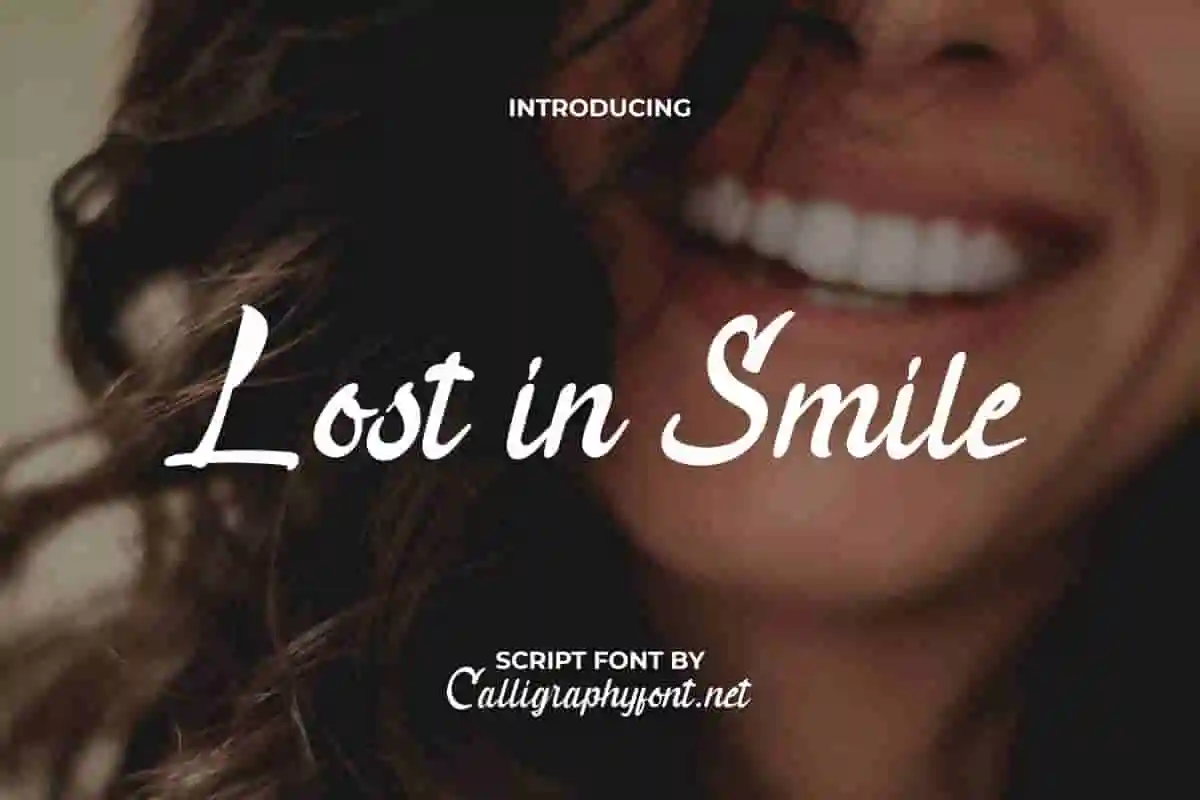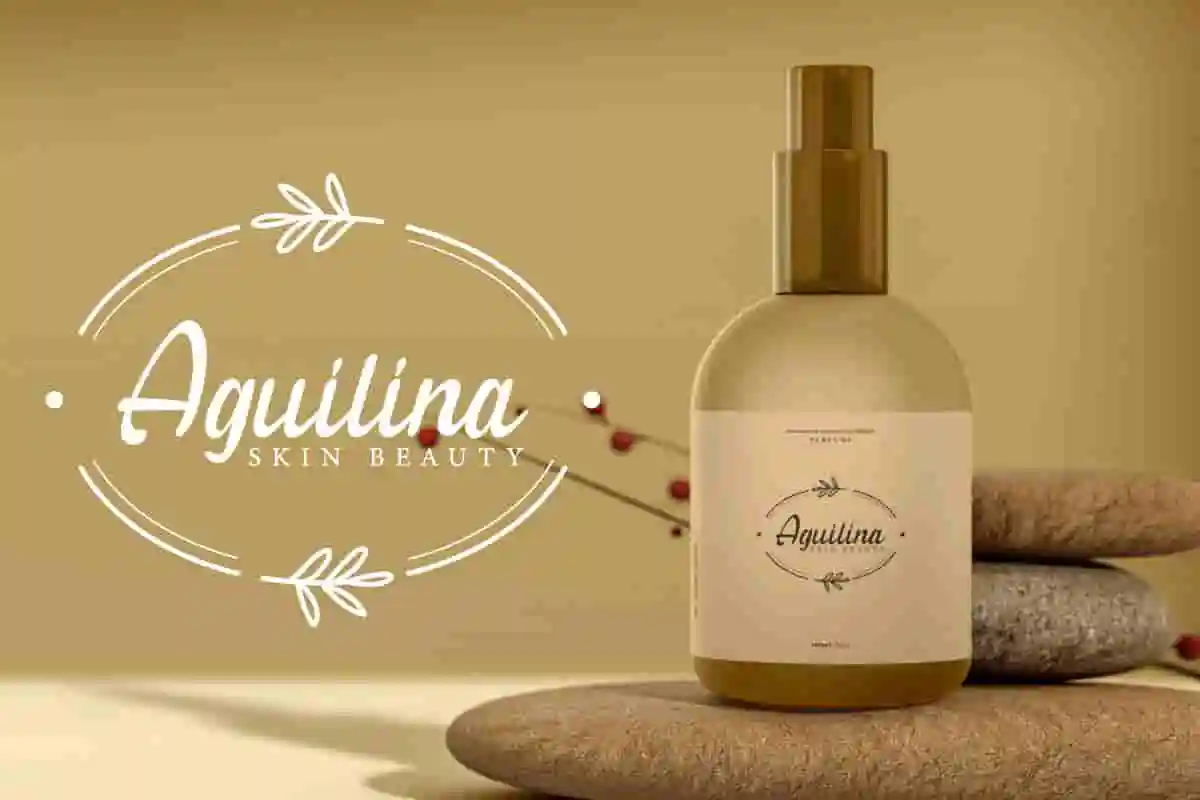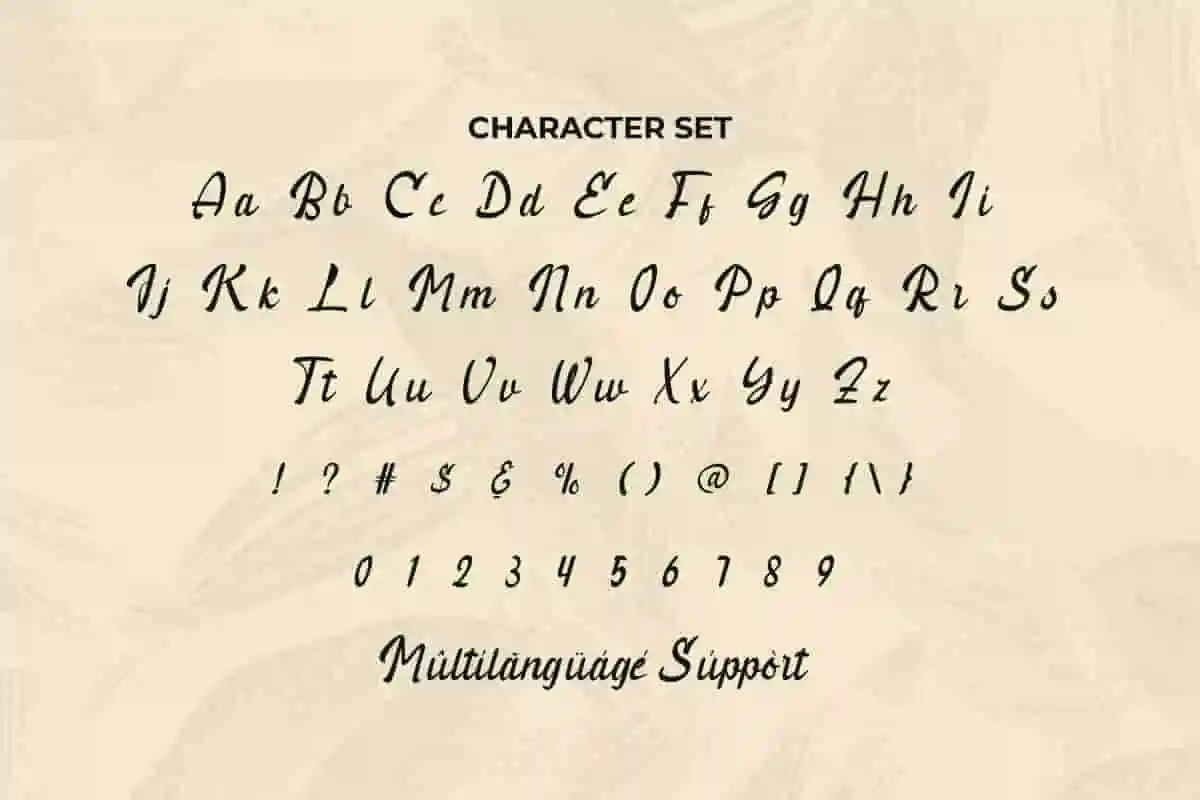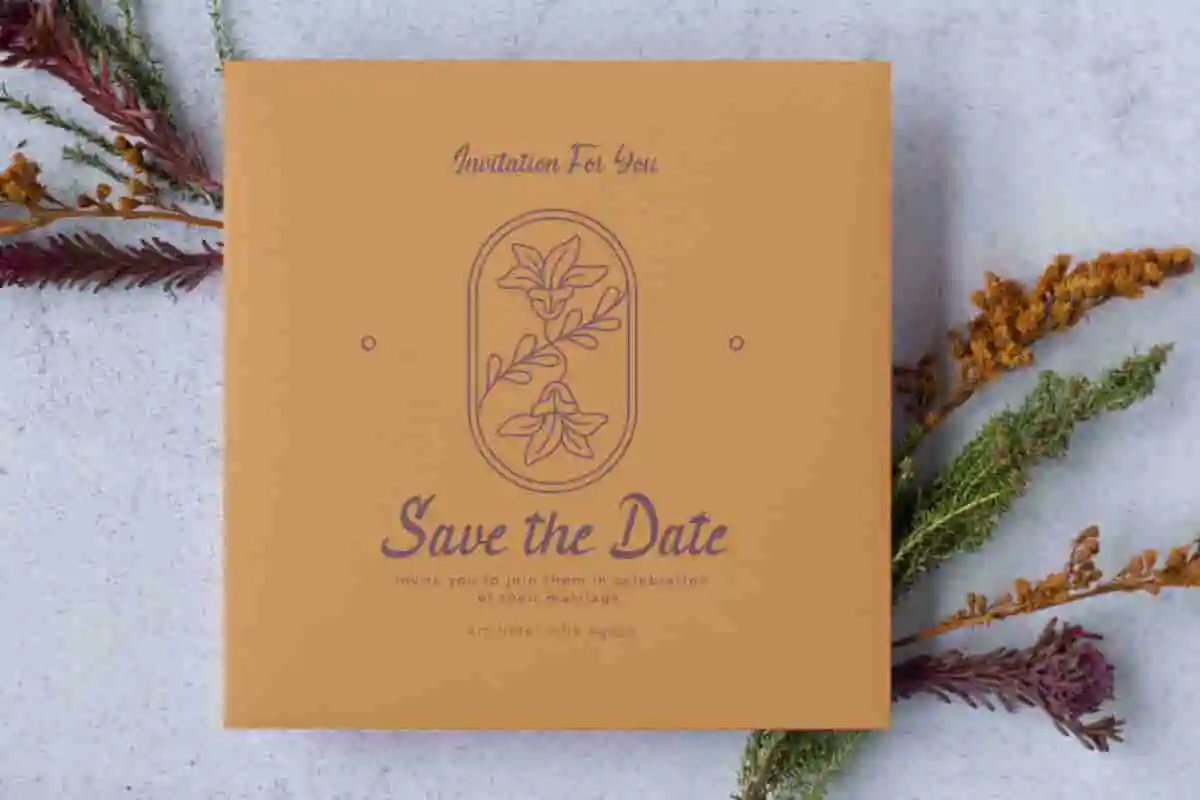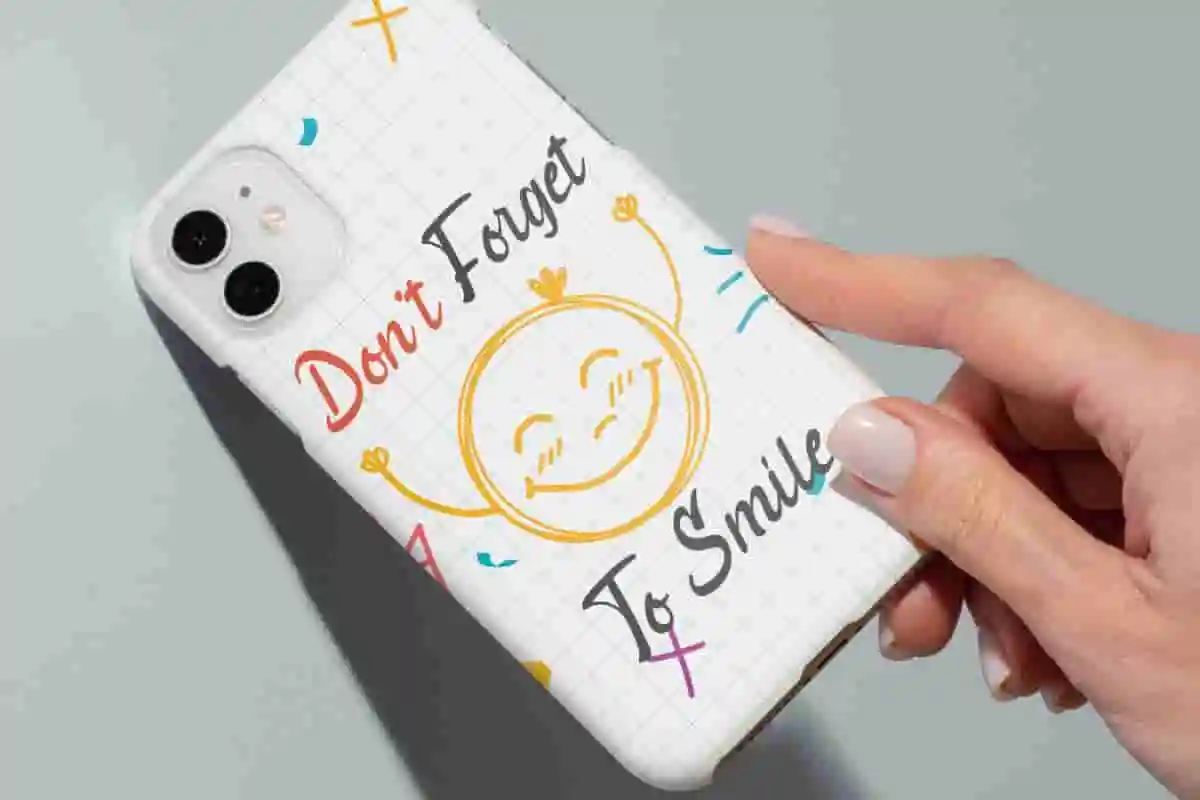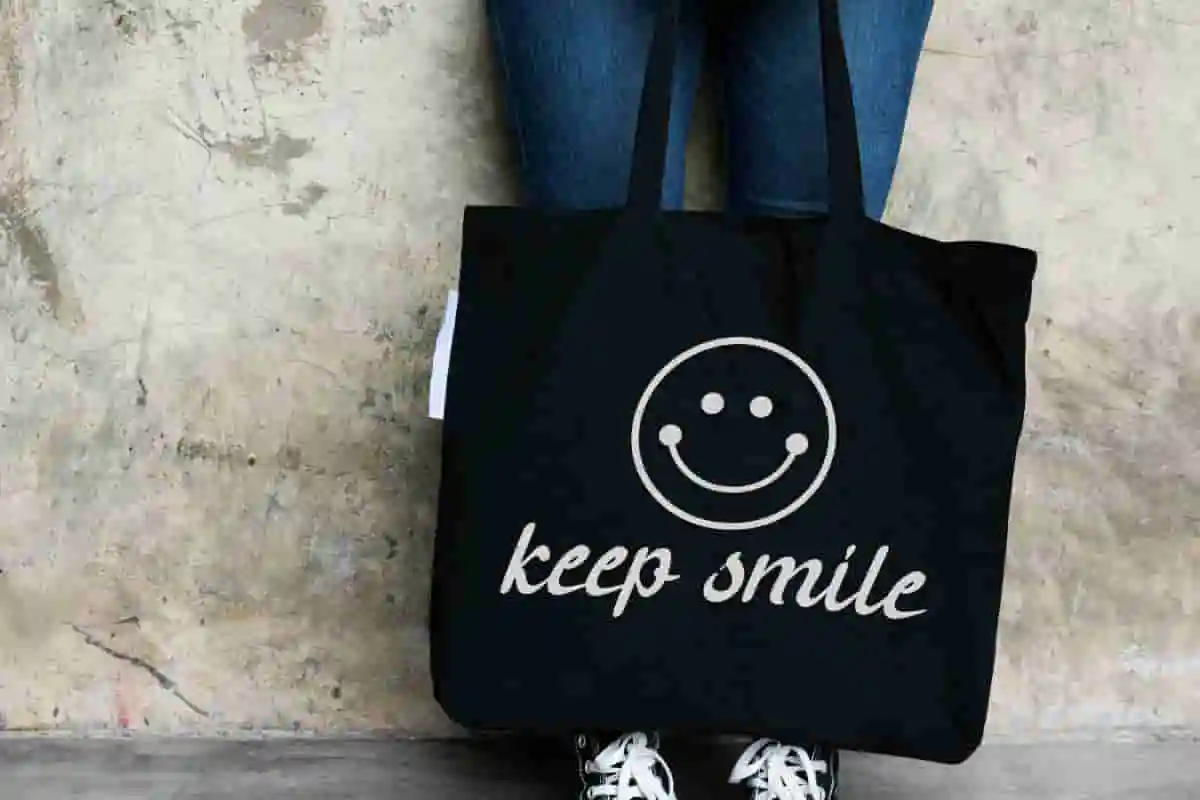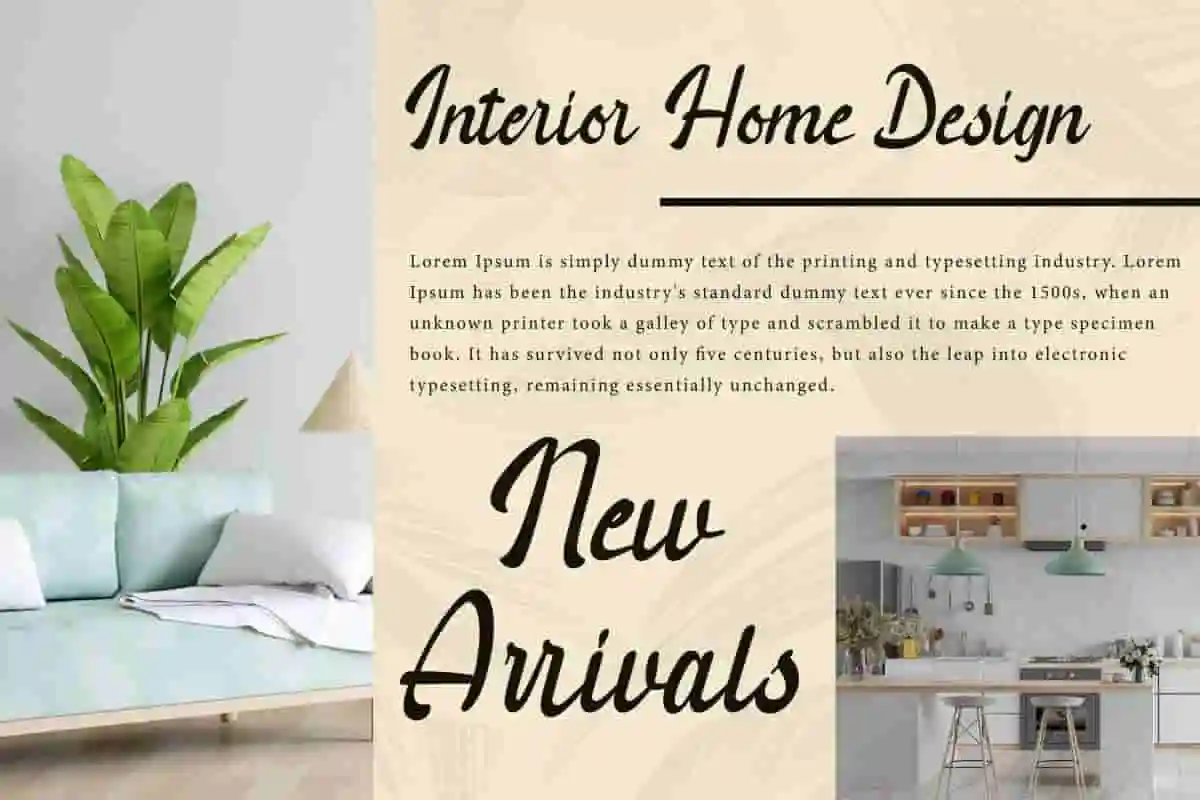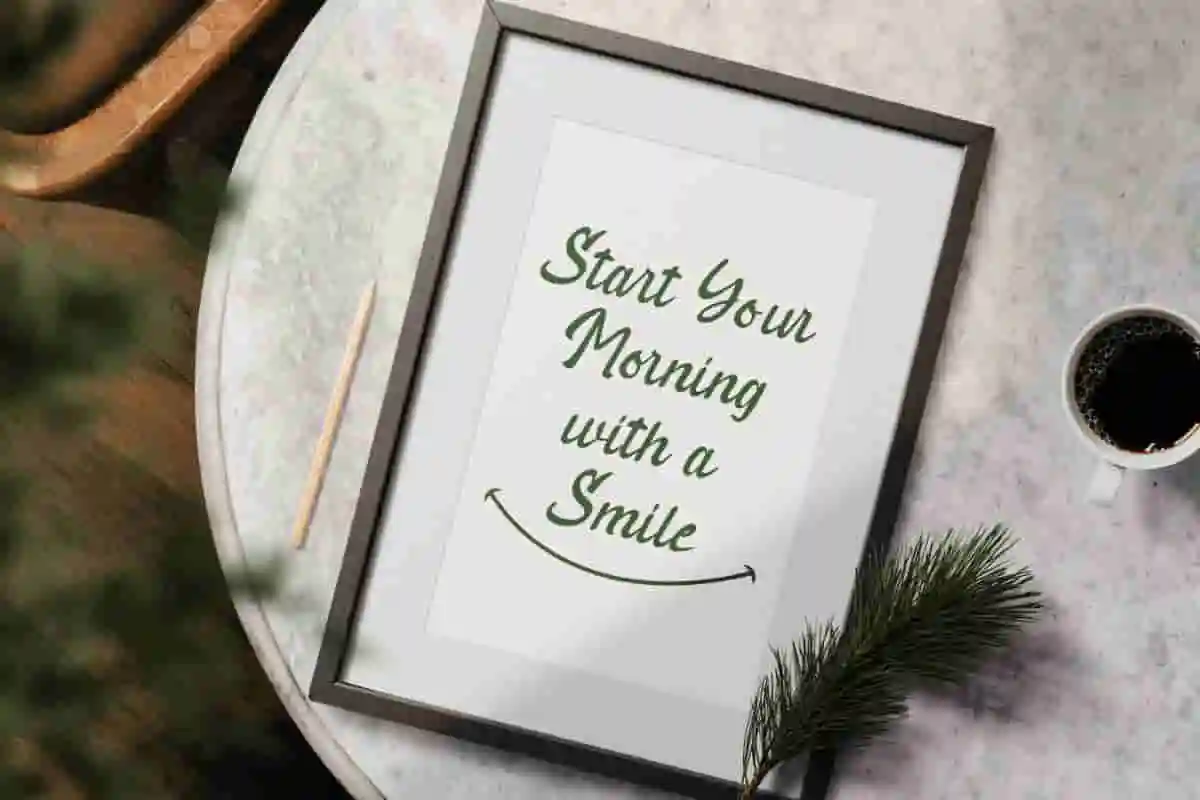
Lost in Smile Font
Lost in Smile Font is a gorgeous calligraphic script font with beautiful brush strokes forming curves in all sorts of stunning vibes. Great for many businesses : interior design, skincare brand, stationery, website, wedding and much more.
Lost in Smile Font is a gorgeous calligraphic script font with beautiful brush strokes forming curves in all sorts of stunning vibes. Typography with a modern look and feel that will bring joy to anyone with a special brush stroke to make things stand out. It is perfectly made to apply especially to any creative project, such as book, case design, invitation, label, logo, packaging, quote, screen print, website or any type of advertising purpose.
Every design tells a story, and sometimes all it needs is the perfect typeface to bring that story to life. Introducing Lost in Smile Brush Font, a delightful and playful handwritten typeface designed to spread positivity and creativity in every project. Whether you’re working on personal crafts, branding, or digital designs, this font is made to spark happiness and connection.
Lost in Smile Brush Font captures the warmth of natural handwriting with smooth curves and lively strokes, giving your designs a unique personality. It is perfect for greeting cards, social media posts, children’s books, packaging, posters, invitations, and logos. With its charming and approachable style, this font instantly adds a touch of friendliness and joy, making your message stand out.
Crafted with versatility in mind, Lost in Smile Brush Font is easy to read while still maintaining a fun, creative flair. Whether you use it in bold headlines or subtle body text, it adapts beautifully to different design contexts. Its handmade vibe makes your projects feel more personal, authentic, and memorable.
When it comes to digital presence, Lost in Smile Brush Font also works seamlessly across web and print, ensuring that your designs always look professional and polished. It’s the perfect choice for bloggers, creatives, business owners, and designers who want to infuse their projects with energy, happiness, and charm.
Lost in Smile Brush Font is a modern classy script font inspired by classic handwriting in books. It adds an aesthetic that makes your work more appealing, so it’s perfect for any industry, such as accessories, advertisement, author, beauty clinic, beauty vlogger, café, content creator, cosmetic, event organizer, fashion brand, furniture, graphic design, handicraft, interior design, photography, printing, publishing, restaurant, skincare, wedding, writer, etc.